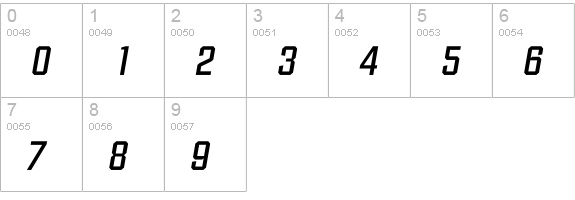
Idiamante Medium is a balanced, medium-weight variant in the Idiamante typeface family \xE2\x80\x94 well suited to sub-headlines, navigation, and balanced editorial work.
Idiamante Medium is a stunning font that effortlessly captures attention with its elegant and sophisticated design. This font strikes the perfect balance between modernity and timeless appeal, making it suitable for a wide range of creative projects. With its medium weight, Idiamante Medium exudes a sense of balance and harmony, making it versatile for both headlines and body text. The clean and crisp letterforms are meticulously crafted, ensuring legibility at any size. Idiamante Medium is an excellent choice for branding, logo design, advertising materials, packaging, and editorial layouts. Its versatility allows it to convey a sense of professionalism and refinement, making it ideal for corporate and luxury aesthetics. One of the best things about Idiamante Medium is that it is free! Yes, you read that right. This beautiful font is freely available to download at FontsMarket.com. Now, you can enhance your designs with this exquisite typeface without any cost. Whether you are a professional designer or just starting your creative journey, Idiamante Medium will surely elevate your projects to new heights. Embrace the elegance and sophistication of this font and let your creativity shine. Download Idiamante Medium today and experience the beauty of this remarkable typeface.